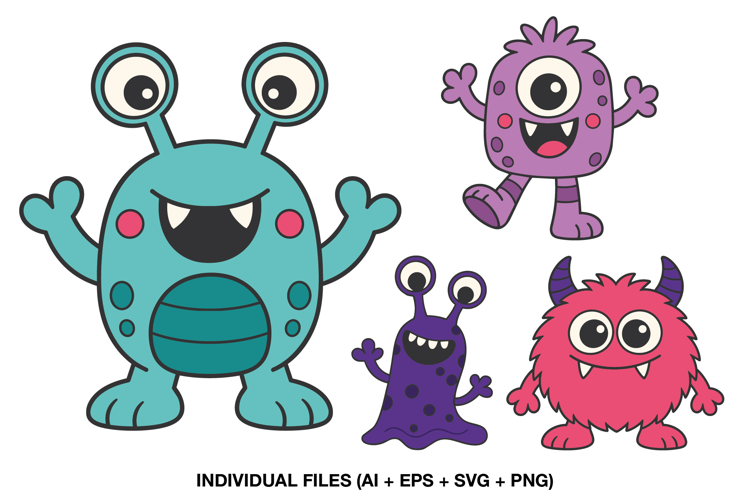
Make-a-Monster- Cute Halloween Color Font
👾 Unleash your imagination with the "Make-a-Monster" Whimsical Color Font! Packed with friendly monsters, colorful horns, textures, stripes, and goofy expressions, this playful font is built perfectly for children's designs, birthday party invitations, school posters, and digital scrapbooking layouts. It's a fantastic fit for sublimation, custom stickers, and vibrant print-and-cut crafts!